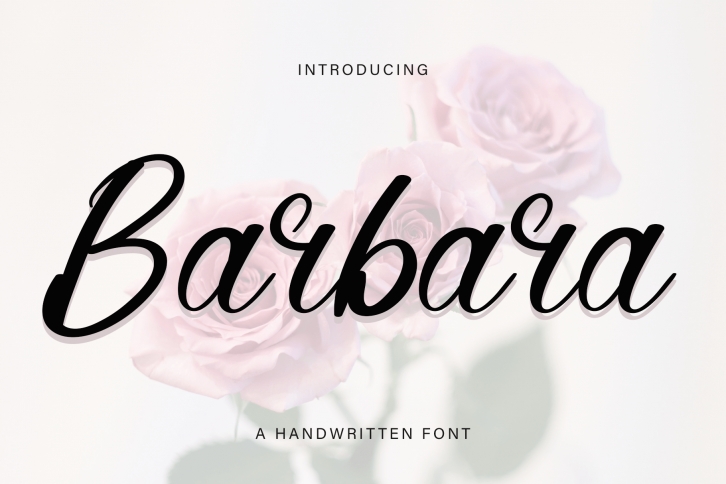
Barbara is a simple and friendly handwritten font. Whether you’re using it for crafts, digital design, presentations, or making greeting cards, this font has the potential to become your favorite go-to font, no matter the occasion